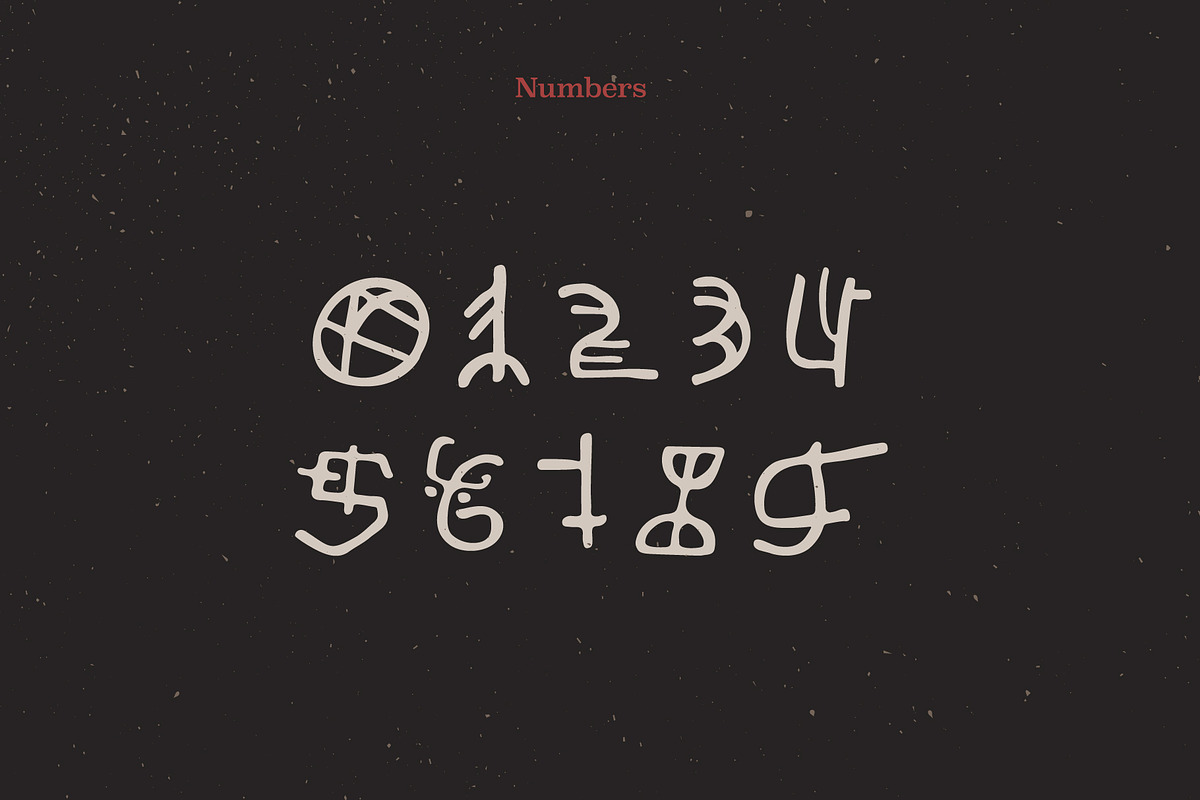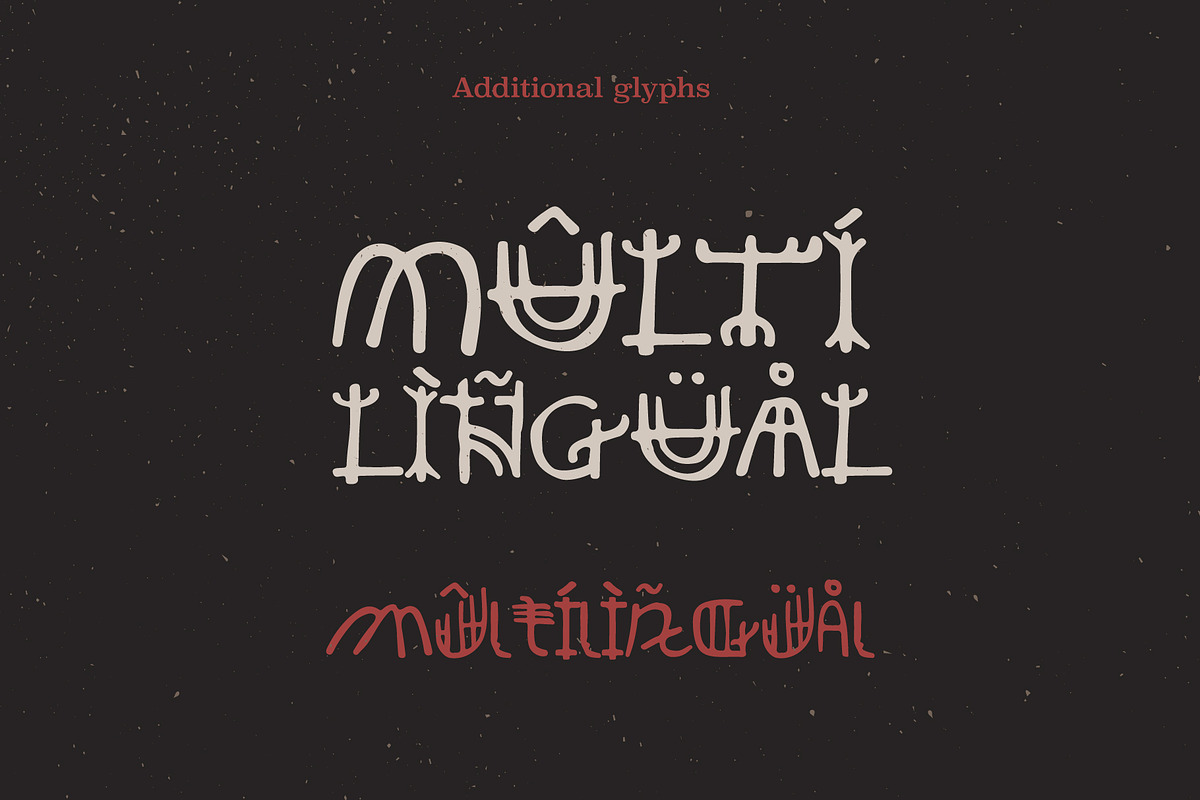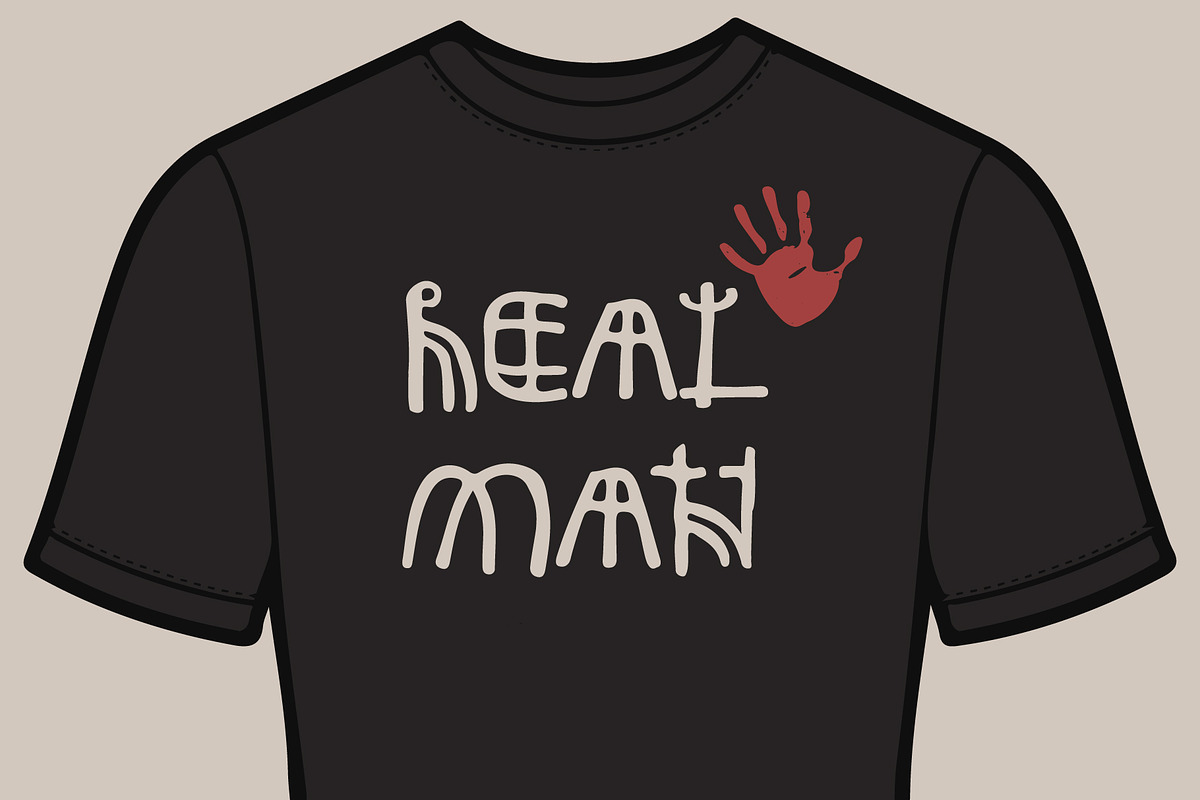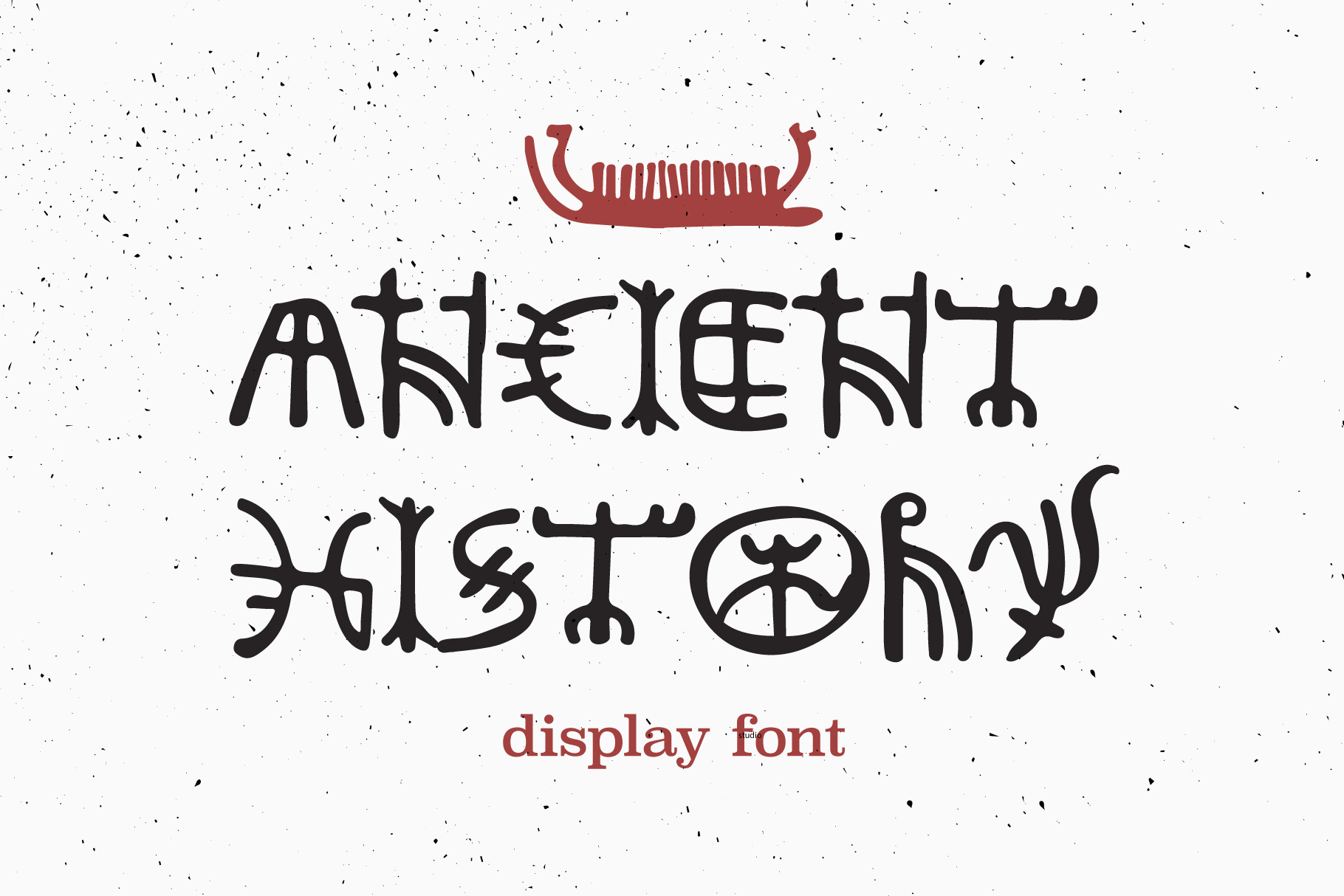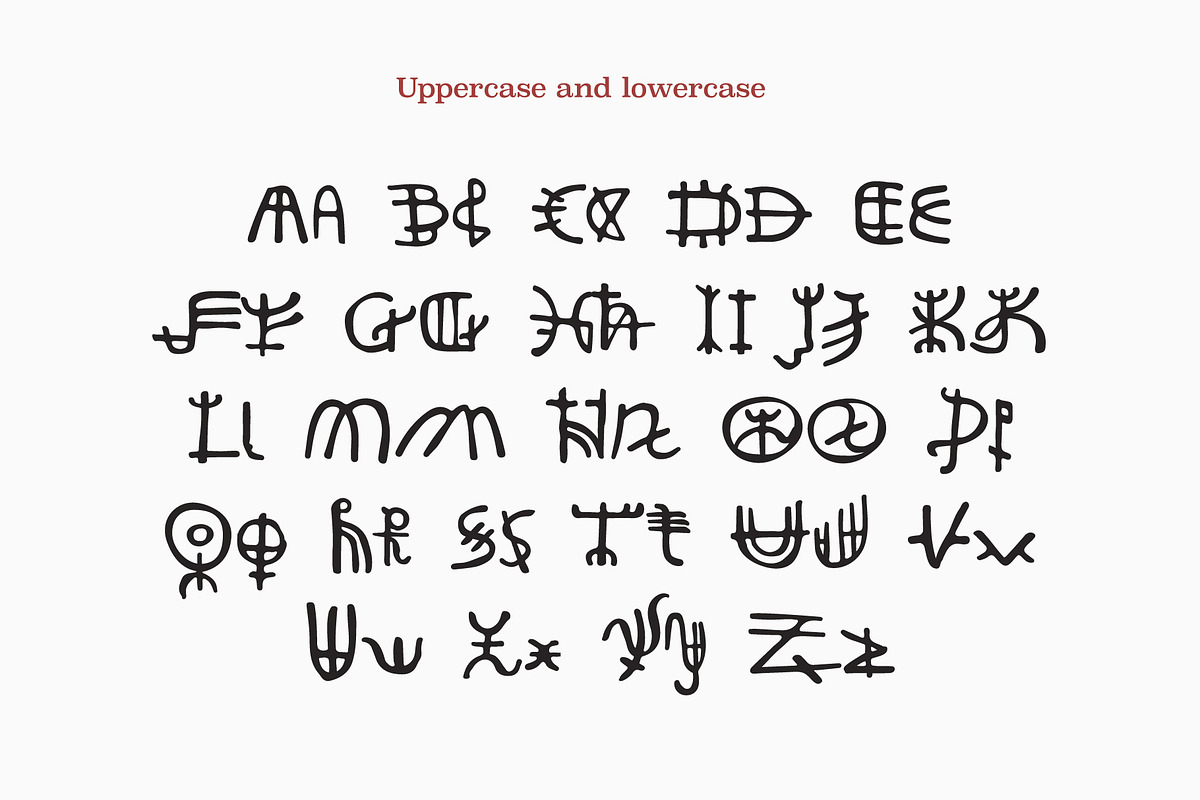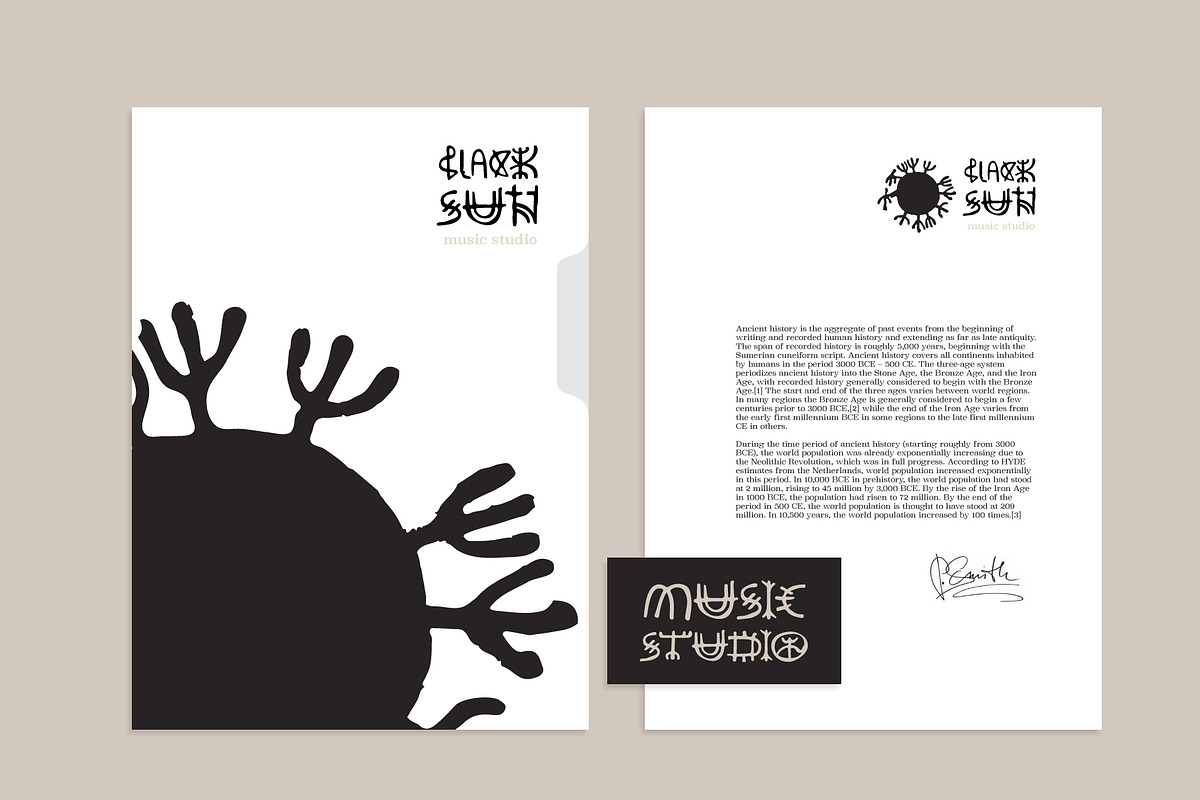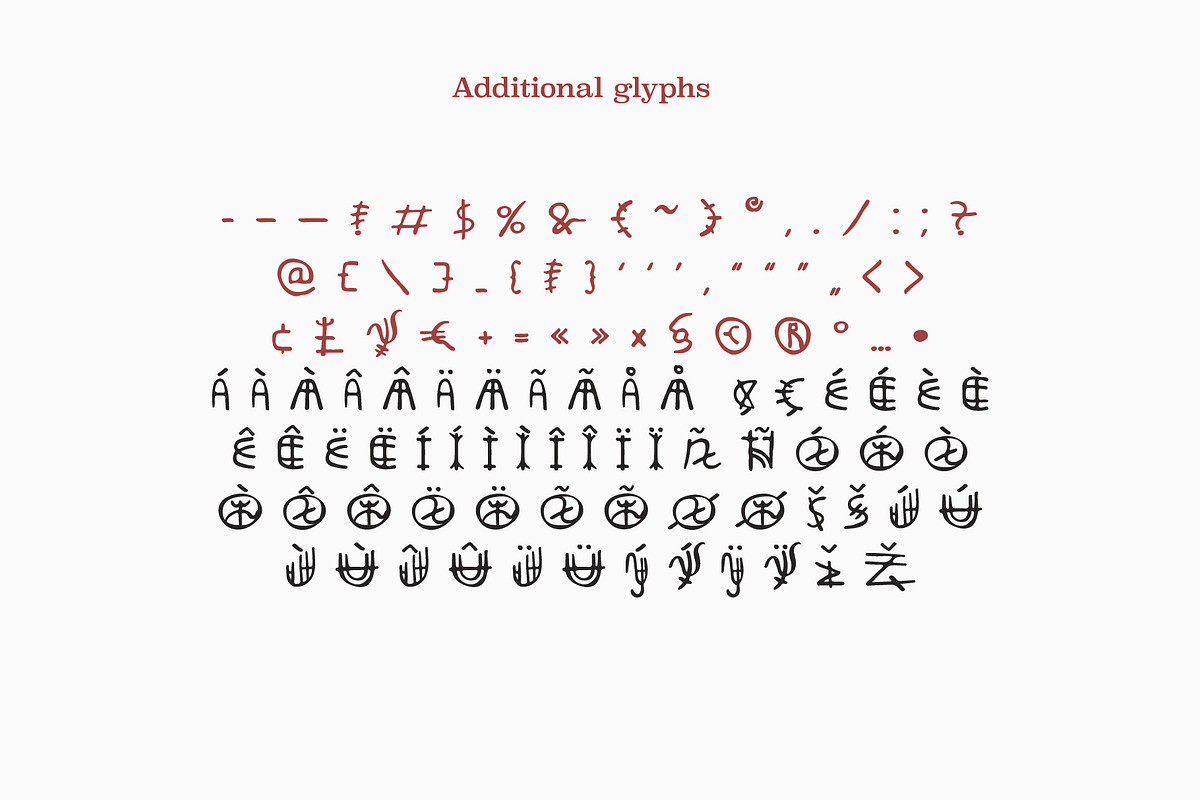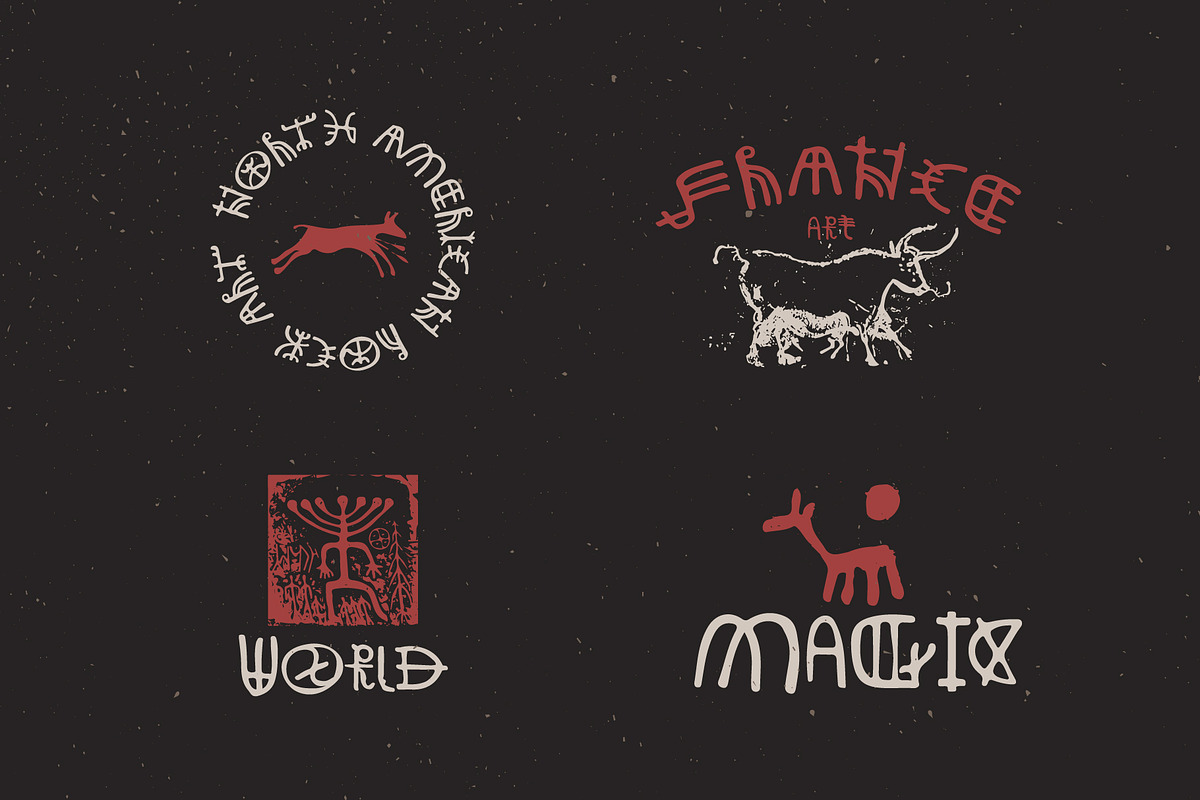
Ancient History font
Hey guys! I'm happy to introduce you my new Ancient history based font. Recently I made an adventure to the North and visited a rock art attraction. This font based on pictograms I saw.
The font may be used for creating ancient prints, logo design, clothing embroidery, product packaging, historical header, etc.